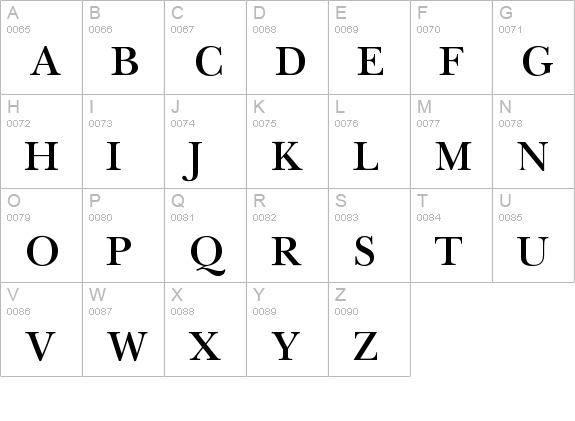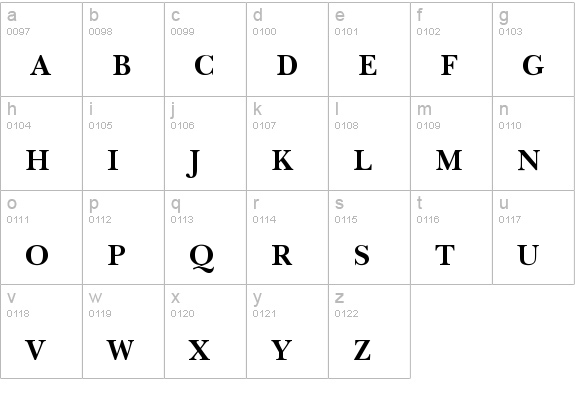
New Baskerville* Expert Semi Bold is a strong, high-contrast variant in the New typeface family \xE2\x80\x94 well suited to headlines, attention-grabbing titles, and strong calls-to-action.
New Baskerville Expert Semi Bold font is a bold and elegant typeface that exudes sophistication and professionalism. Its strong, yet refined design makes it perfect for a wide range of design projects, from elegant invitations to corporate branding. The semi bold weight adds a sense of modernity and impact to any text, while still maintaining the classic charm of the Baskerville typeface. Best of all, New Baskerville Expert Semi Bold font is freely available to download at FontsMarket.com. This means you can easily access and use this beautiful font for your personal and commercial projects without any cost. Don't miss out on the opportunity to add this versatile and timeless typeface to your font collection today!